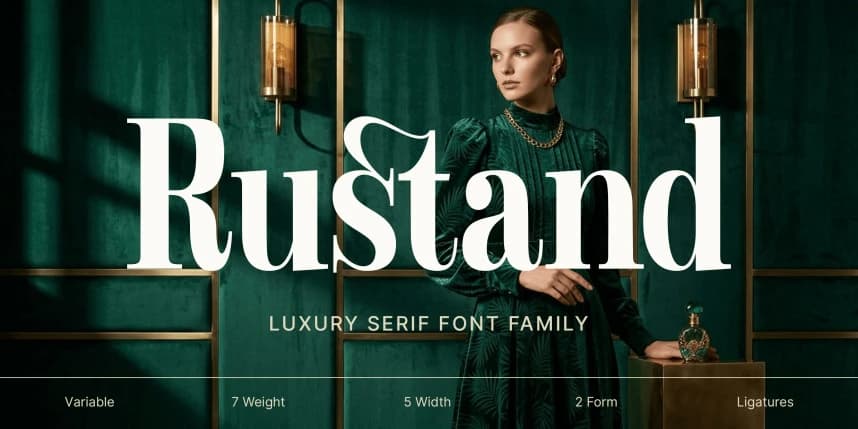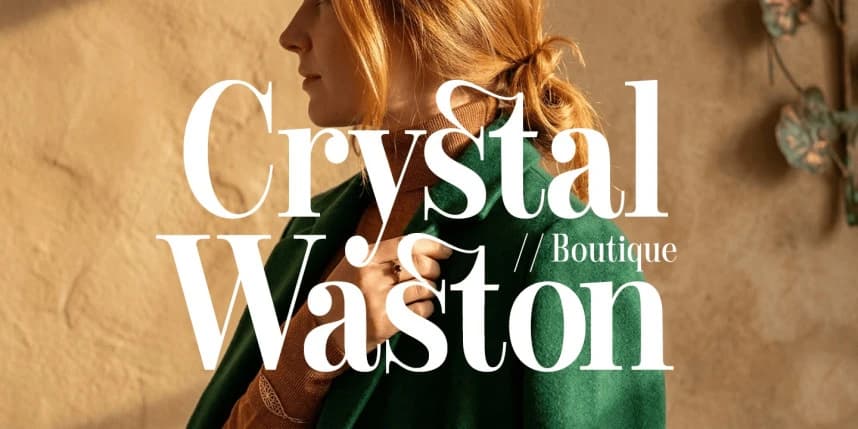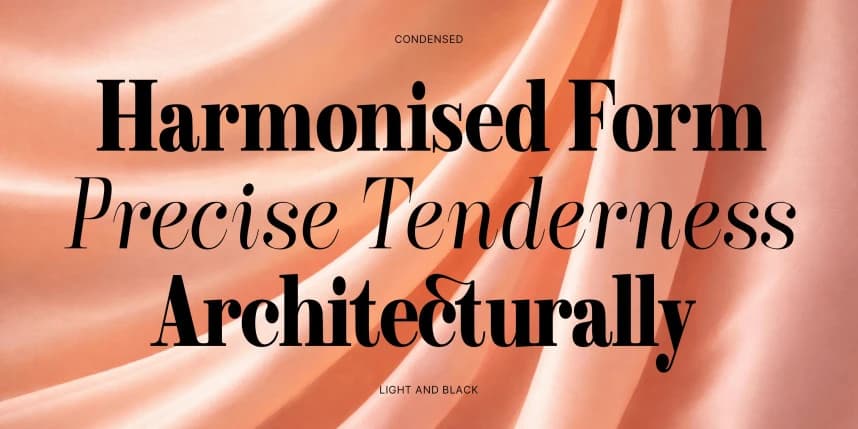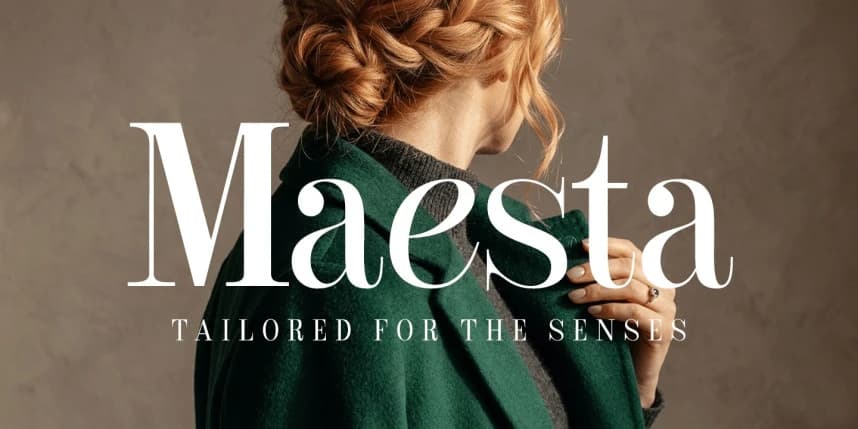
Rustand Font Family
Rustand Font Family is a luxury serif font designed to deliver an elegant, modern, and sophisticated impression. It features refined thick–thin contrast and beautifully crafted serif details that create a strong yet graceful character.